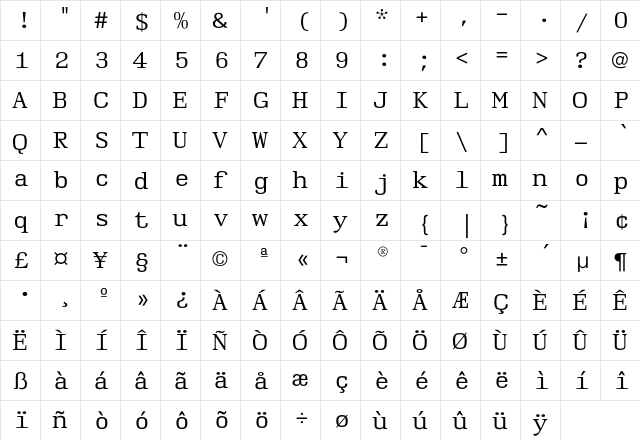
MonantiEF-Regular Regular
Design Context for MonantiEF-Regular Typeface
MonantiEF-Regular is a composed and adaptable typeface that performs quietly and consistently across a wide range of design contexts.